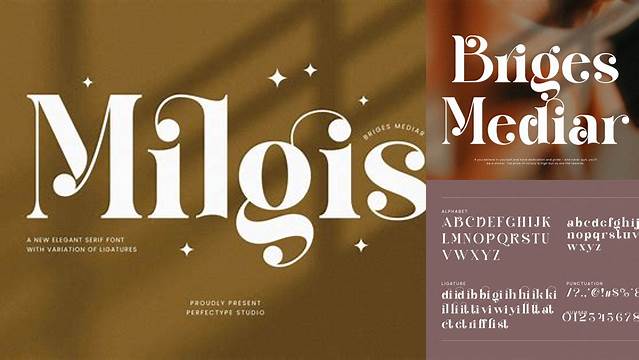
Milgis Serif Font: Free Download & Design Guide
Hey guys! Are you on the hunt for a super stylish and elegant serif font? Look no further, because we're diving headfirst into the wonderful world of Milgis, a font that's seriously turning heads in the design community. And the best part? You can snag a free download of this beauty! In this guide, we'll explore everything you need to know about Milgis, from where to download it and how to use it, to some awesome design ideas to get your creative juices flowing. Get ready to elevate your projects with the timeless charm of Milgis.
1. Unveiling Milgis: The Epitome of Serif Elegance
Let's get to know Milgis a little better, shall we? This isn't just any serif font; it's a carefully crafted typeface that exudes sophistication and a touch of modern flair. Designed with meticulous attention to detail, Milgis boasts clean lines, graceful curves, and a balanced weight that makes it incredibly versatile. Whether you're designing a sleek website, a captivating logo, or a printed piece that demands attention, Milgis steps up to the plate. The subtle nuances of the font – the slight variations in stroke thickness, the elegant serifs, and the overall harmony – contribute to its undeniable charm. What I love is its ability to look both classic and contemporary at the same time. It feels like it's been designed to stand the test of time. Finding a good font that resonates with the style you want is a game changer, and Milgis really fits the bill in my book. You can almost feel the craftsmanship that went into the creation of this font. Plus, it's incredibly readable, even at smaller sizes, which is a huge plus when you need to use it for body text or smaller details. With its versatile design, Milgis is ideal for a range of projects, from branding and marketing to editorial design and web layouts. If you are looking for a font that's both stylish and functional, Milgis is worth a closer look.
3. Milgis Font: Key Features and Design Characteristics
Milgis isn't just a pretty face; it's packed with features that make it a powerhouse for designers. Its key characteristics are what make it stand out from the crowd. One of the most notable features is its exceptional legibility. The carefully designed letterforms ensure that your text is easy to read, whether it's used in headlines, body copy, or captions. This is especially important when you're designing websites or printed materials where readability is key to keeping your audience engaged. Also, the overall aesthetic is a perfect mix of classic elegance and modern touches. The clean lines and subtle serifs create a feeling of sophistication, while the contemporary design elements keep it from feeling dated. If you need a font that is a safe bet, you should consider using Milgis for your designs. The spacing is perfect and balanced for each letter of the alphabet. Another cool thing is the variety of weights that Milgis often comes with. You might find it in light, regular, bold, or even extra-bold versions. That means you can tailor the font to fit your specific needs, whether you need a delicate font for a logo or a bold statement for a headline. Because of its flexibility, Milgis can be a great asset in your design projects. The features of this font work together to create a seamless and stunning design.
4. Milgis in Action: Creative Uses and Design Inspiration
Now for the fun part! Let's talk about how you can use Milgis to bring your design visions to life. This font is incredibly versatile. Think about using it for branding projects, like creating logos, business cards, and website headers. The elegant and sophisticated look of Milgis instantly adds a touch of class to your brand identity. Use it to make your brand stand out from the crowd. If you're working on editorial design, imagine Milgis gracing the pages of magazines, books, and brochures. The classic serif style is perfect for body text, headings, and subheadings, adding a touch of timelessness and professionalism. Or consider how Milgis could enhance your website design. Use it for headlines and navigation menus to create a clean and inviting user experience. The readability of Milgis makes it a great choice for any website content. In short, Milgis offers a vast array of creative possibilities that can inspire new ideas and elevate any design project. With its adaptability, Milgis has a lot to offer in the design world.
5. Milgis vs. Competitors: How It Stands Out
In the crowded world of serif fonts, how does Milgis stack up against the competition? Well, it's definitely got some advantages. One of the things that sets it apart is its balance of elegance and readability. Many serif fonts lean heavily in one direction or the other, but Milgis has a more versatile and balanced approach. It looks great for body text or headlines. It's perfect if you want something that is both stylish and easy to read. When you're choosing a font, you often have to consider the overall mood you want to create. Milgis nails it when you are looking for a look that is both modern and classic. Also, the attention to detail that goes into the design of Milgis is noticeable. The serifs are beautifully crafted, and the letterforms have a natural flow that makes it pleasing to the eye. Many fonts have subtle features that you may not notice at first glance but really make a difference in the end. The versatility of Milgis is also a factor to consider. Some fonts are only designed for certain things, but Milgis can be adapted for lots of projects. If you need a font for a range of projects, you have to consider Milgis for your project. Overall, Milgis does an amazing job of combining style and functionality.
6. Choosing the Right Font Weight for Your Milgis Design
One of the great things about Milgis is that it usually comes in multiple weights. These weights are different variations of the same font, ranging from light to bold, and they let you customize your designs. When picking the right weight, think about how you are using the font. If you're using it for a headline, you might want to choose a bold or extra-bold weight to make a statement. This helps make the headline pop. But when it comes to body text, it is usually best to go with a regular or light weight. The extra weight can make it harder to read. Consider the overall style of your project. A lighter weight can give off a feeling of sophistication and airiness. Bold weights can create a more powerful and modern feel. Always consider the project's needs, like whether you're designing for print or web, where legibility is key. If you are designing for the web, make sure the font weight is easy to read on different screens. By selecting the right weight, you can make sure that your text is easy to read and also matches your overall vision. Ultimately, the right font weight is the one that looks best and helps communicate your message in the best way possible.
7. Pairing Milgis with Other Fonts for Stunning Results
Want to take your design to the next level? Consider pairing Milgis with other fonts. Mixing fonts can add depth and contrast to your designs, making them more engaging and dynamic. When you're pairing Milgis, consider what you're trying to achieve. A great combination can be Milgis with a clean sans-serif font. Milgis with a sans-serif font is a classic combination that works well for lots of projects. You'll have the elegant serif of Milgis for headlines and titles. And then you can use the clean simplicity of a sans-serif font for body text. This pairing creates a nice contrast, and you can make it easier to read while also catching the eye. Think about using Milgis with a more playful or handwritten font for a more modern, unique design. Just make sure that the fonts complement each other and don't clash. This will make sure that your designs still feel cohesive. Also, remember that less is often more. Don't go overboard with the number of fonts you use. Sticking to two or three fonts max will help your design feel cleaner and more organized. Experimenting is important, so have fun and play around with your font combinations. You will soon create some really eye-catching and attractive designs.